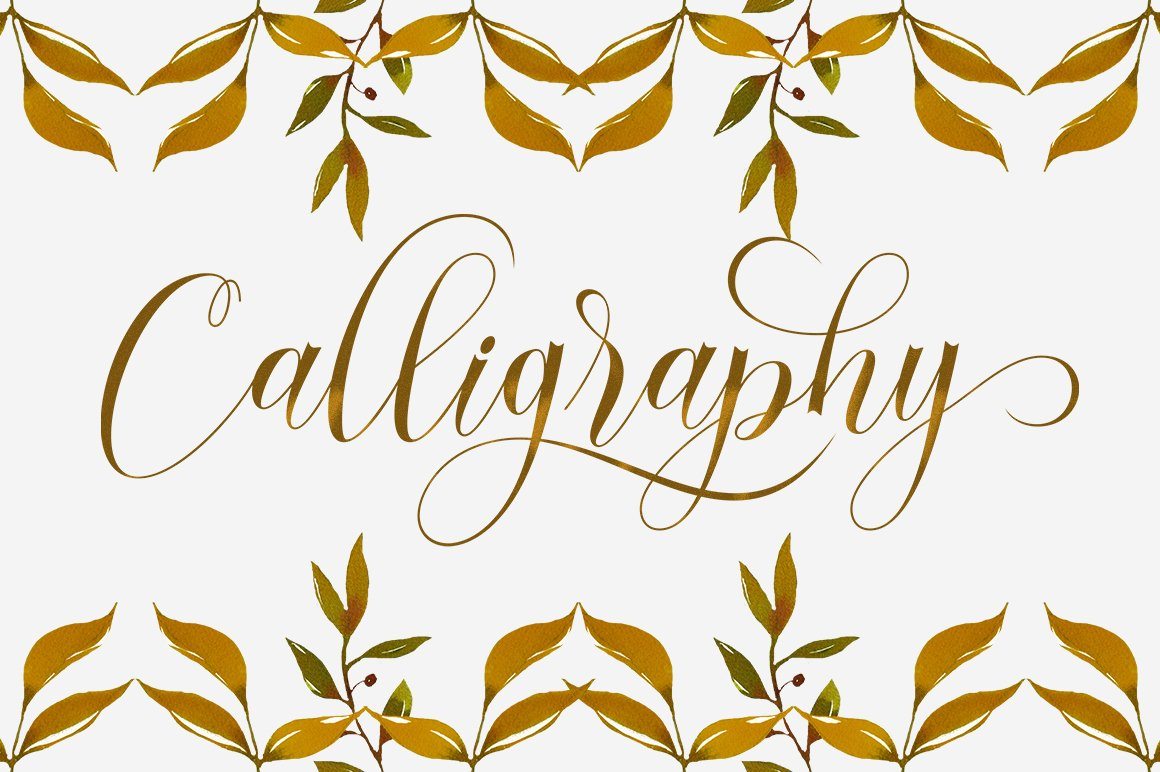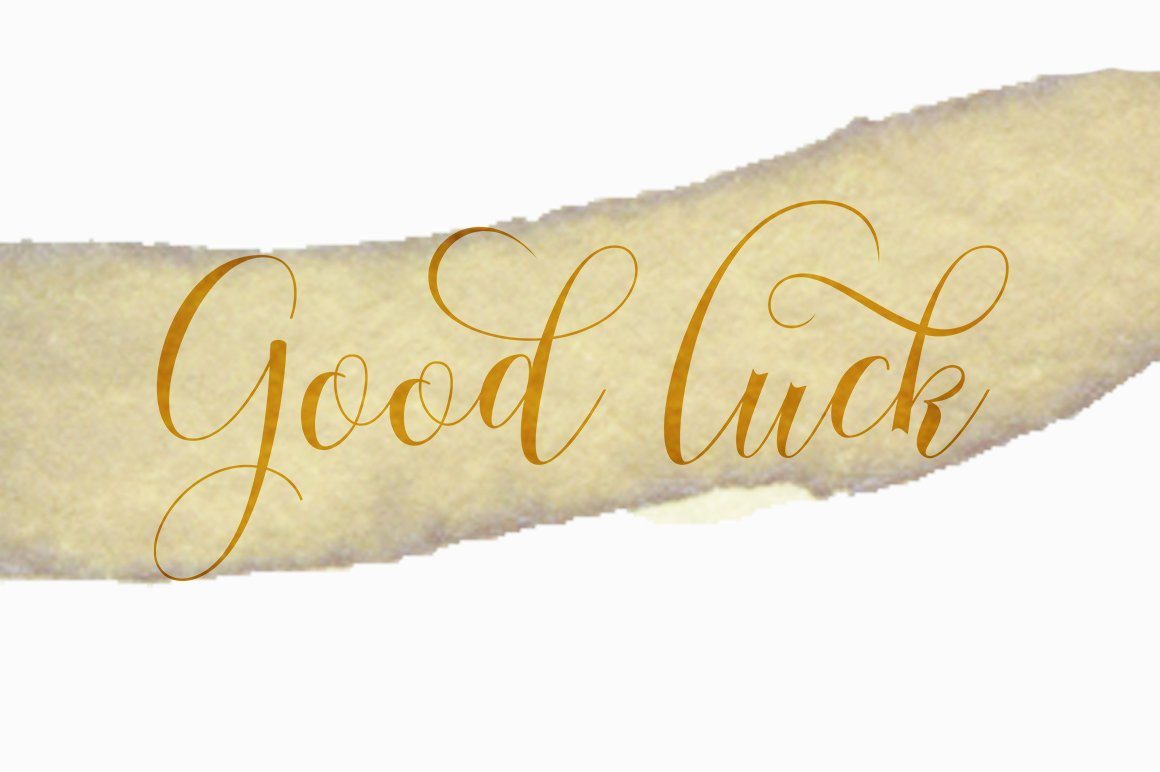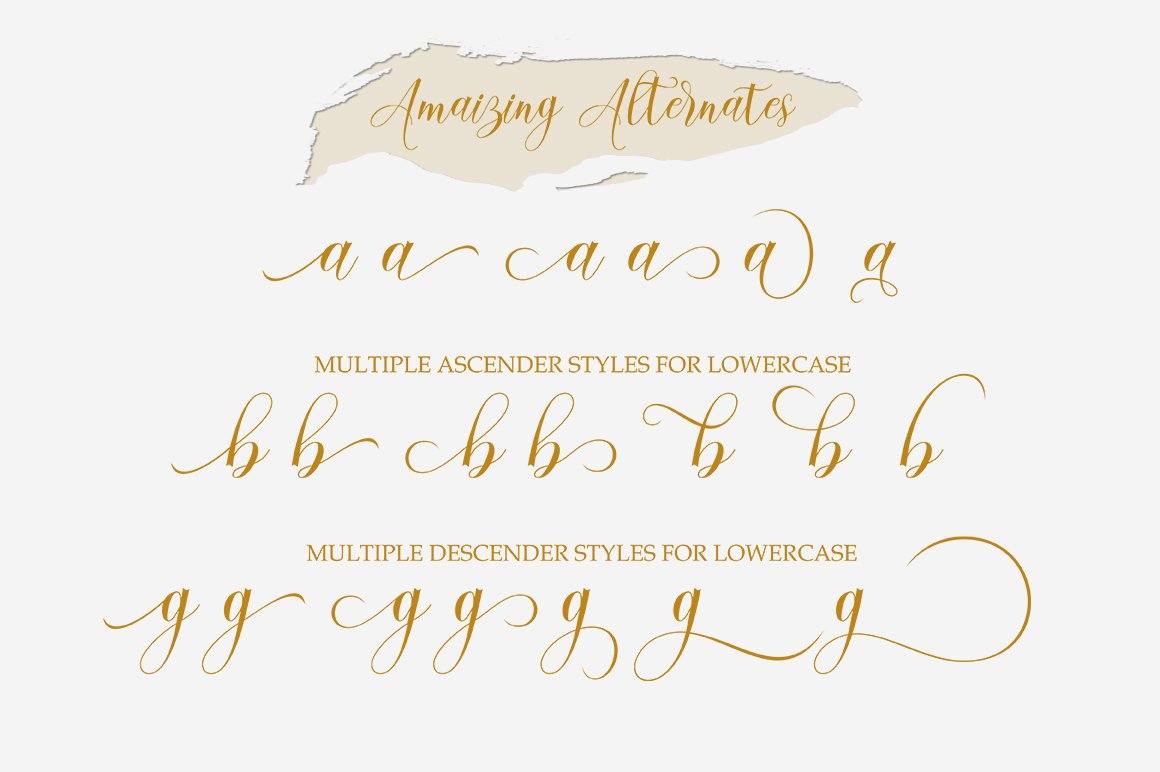
About Seychell
Seychell Script is a calligraphic manuscript modern, dynamic and pretty with swashes. Can be used for many purposes. such as title, signature, logo, wedding invitations, letterhead, signage, labels, newsletters, posters, badges, etc. Seychell Script features Open type, including the initial and terminal letters, ligatures and International support for most Western languages ​​included. Files included: Seychell Script (Otf) Seychell Script (Ttf) To activate OpenType Stylistic alternative, you need a program that supports OpenType features such as Adobe Illustrator CS, Adobe Indesign and CorelDraw X6-X7, Microsoft Word 2010 or later. How to access all of the alternate characters, using the Windows Character Map to Photoshop: https://www.youtube.com/watch?v=Go9vacoYmBw How to access all of the alternate character using Adobe Illustrator: http://youtu.be/iptSFA7feQ0nn Seychell Script PUA encoded with Unicode, which allows full access to all the extra characters without having to design special software. Mac users can use Font Book, and Windows users can use the Character Map to view and copy one additional character to paste into your text editor / favorite applications. Thank you very much for looking and please tell me if you have questions.